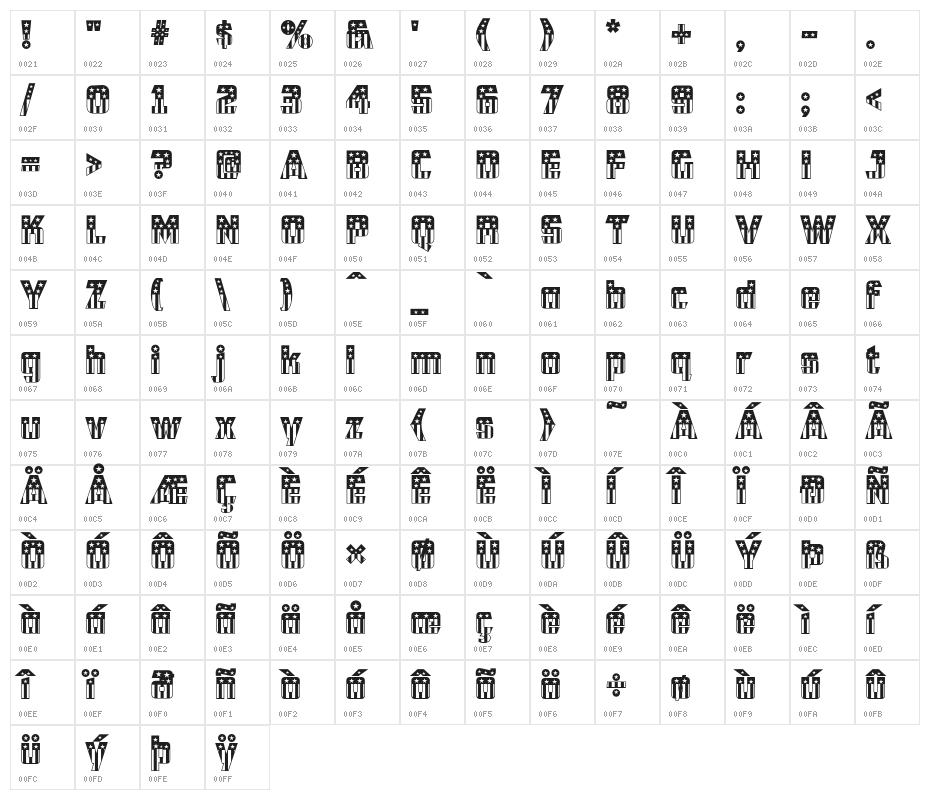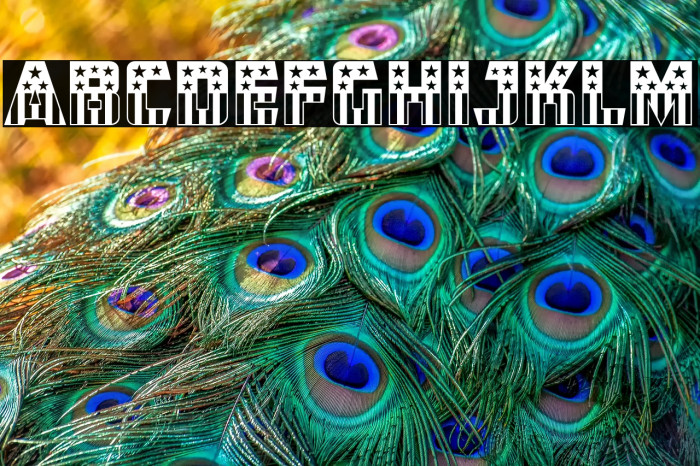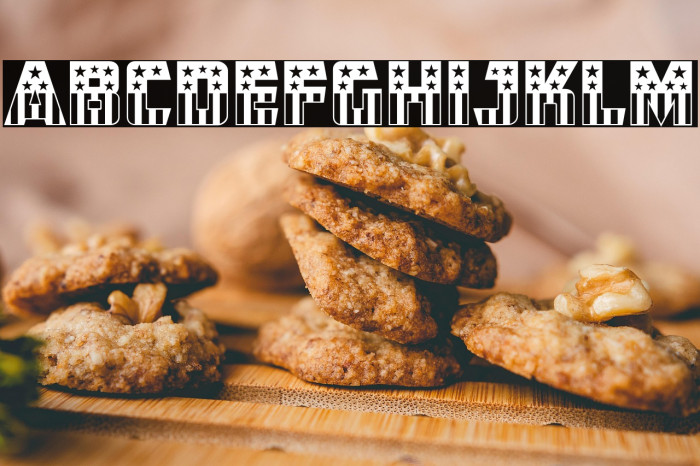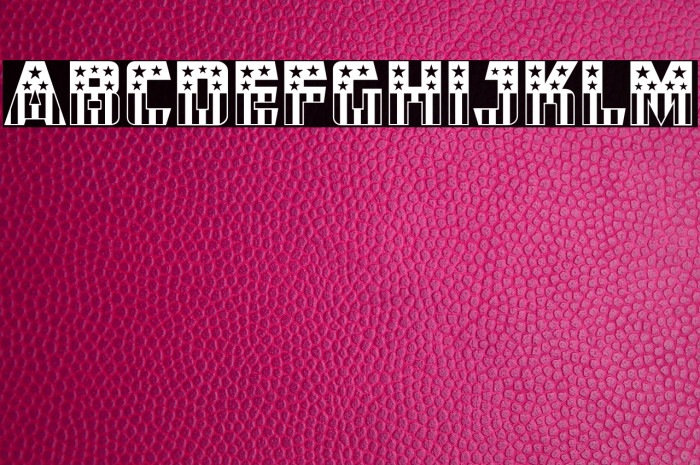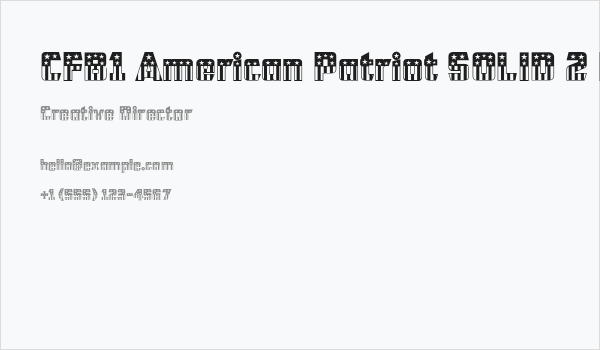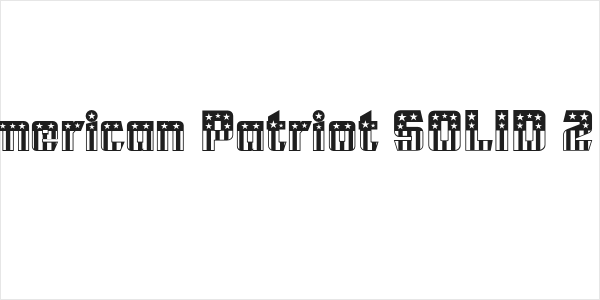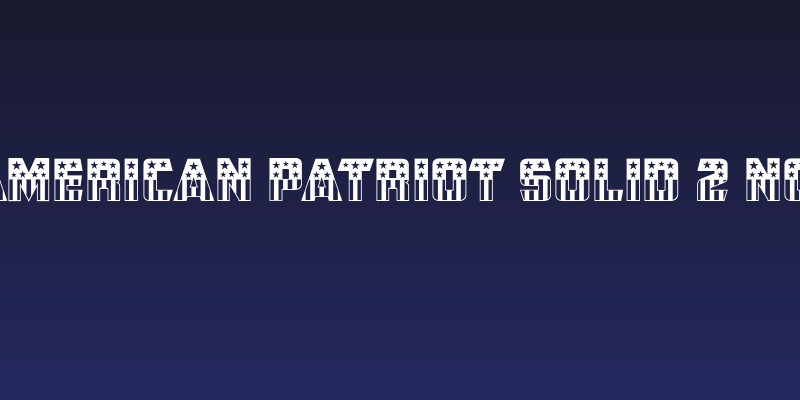
CFB1 American Patriot SOLID 2 Normal Font
CFB1 American Patriot SOLID 2 Normal Description
This font features a bold, patriotic design with elements reminiscent of the American flag. Each character is adorned with stars and stripes, creating a visually striking and thematic appearance. The uppercase and lowercase letters, as well as numbers and special characters, maintain a consistent style that emphasizes national pride. The font's decorative nature makes it ideal for projects that require a strong, thematic presence. Its unique design ensures it stands out in any setting, making it perfect for attention-grabbing headlines and logos.